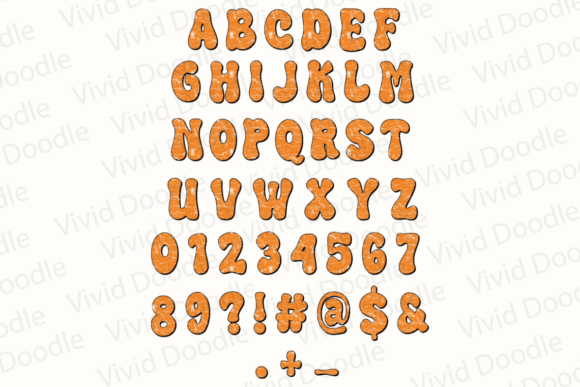
Bright Flower Doodle Font
Bright Flower Doodle Font is a lively and cheerful typeface that blooms creatively! This font is perfect for adding a touch of nature-inspired charm to your designs. Whether you’re working on posters, invitations, school projects, greeting cards, or creative art, this font will infuse your work with playful energy and colorful vibes.